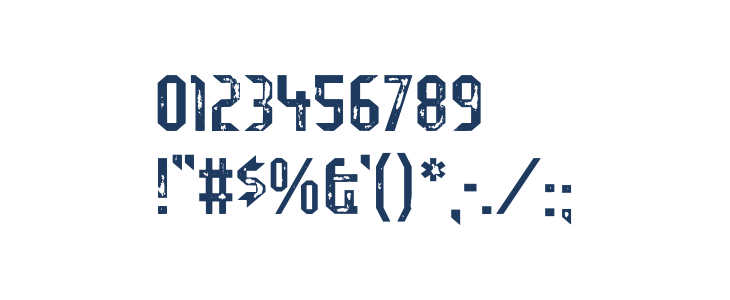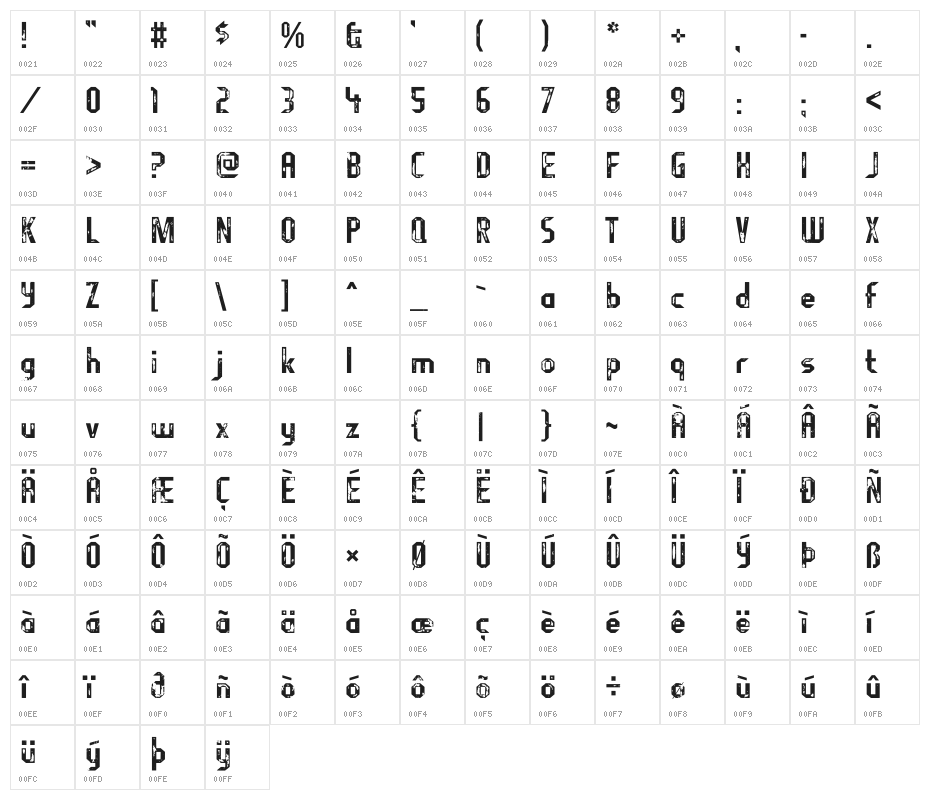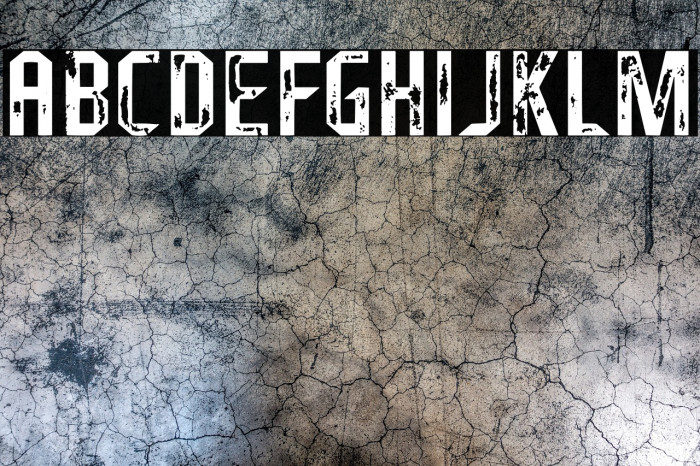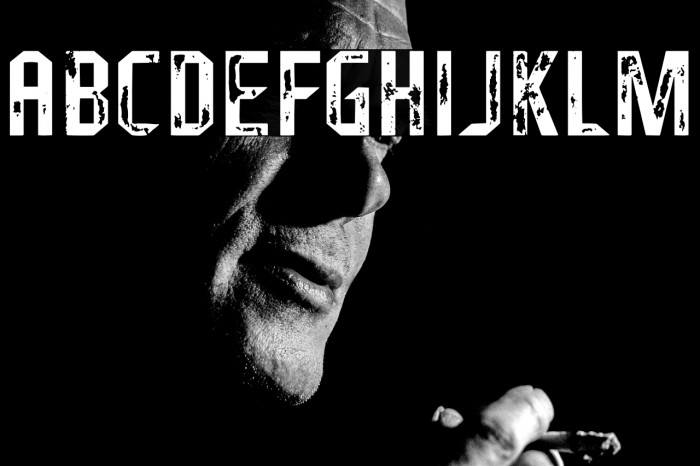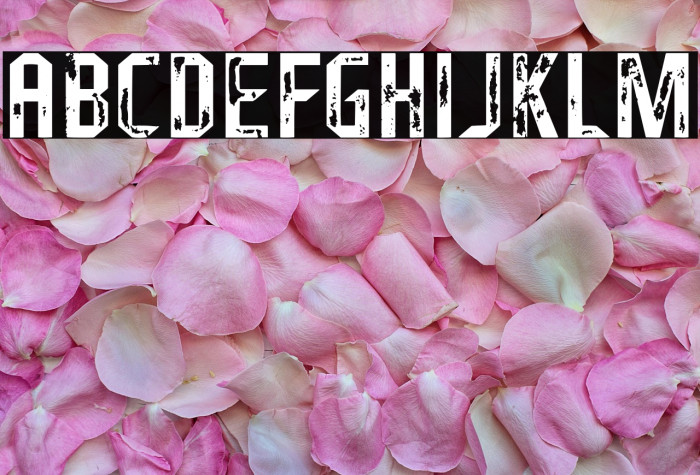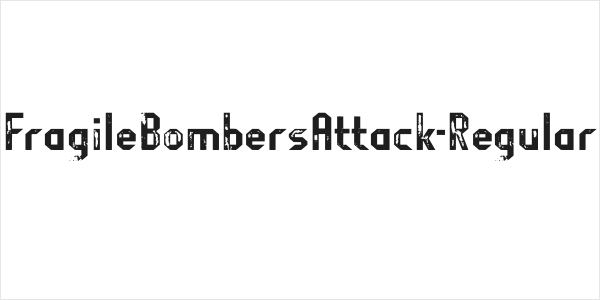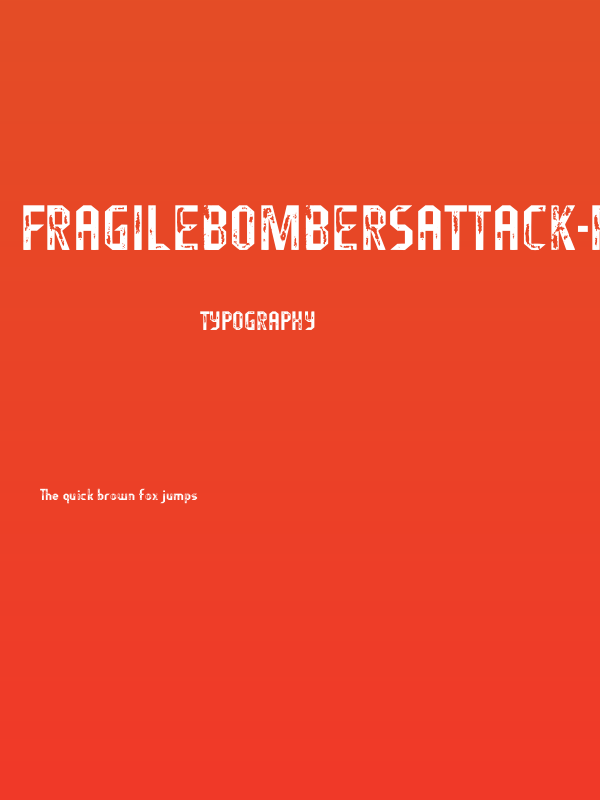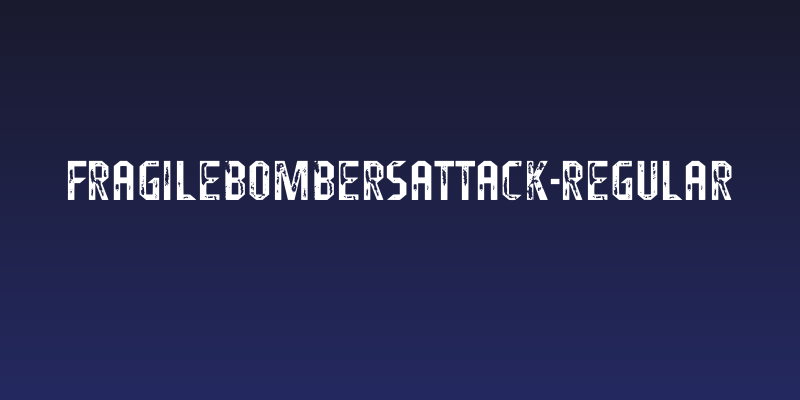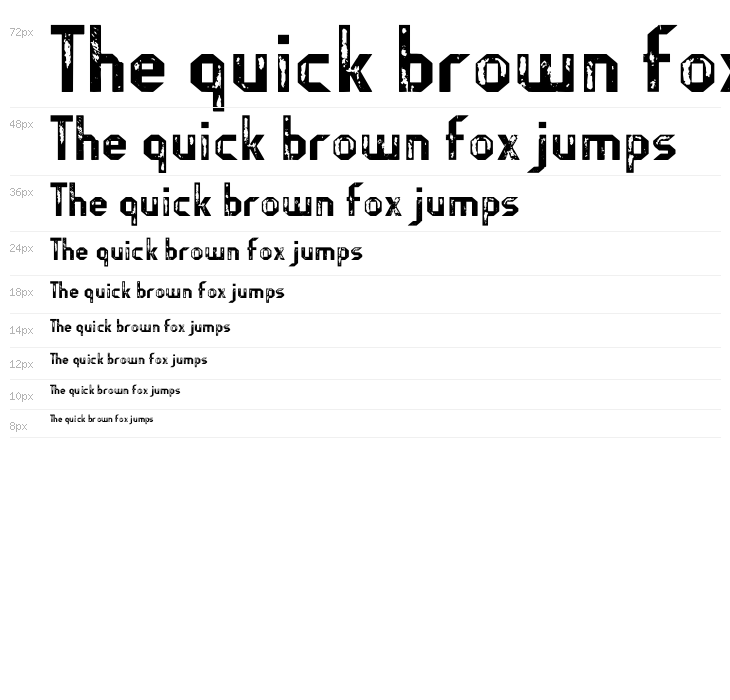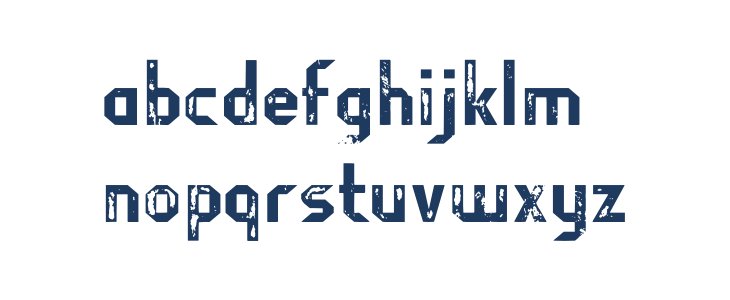
FragileBombersAttack-Regular Font
FragileBombersAttack-Regular Description
This font features a bold, distressed style with a rugged, worn appearance. The characters are angular and geometric, with a stencil-like quality that adds to its industrial feel. The uppercase and lowercase letters maintain a consistent design, while the numbers and special characters complement the overall aesthetic. The texture within each character gives it a unique, grunge look, making it ideal for projects that require a strong, edgy presence.
| Overall Style | Grunge, Industrial |
| Proposed Projects | Perfect for posters, album covers, video game graphics, and branding that requires a gritty, urban look. |